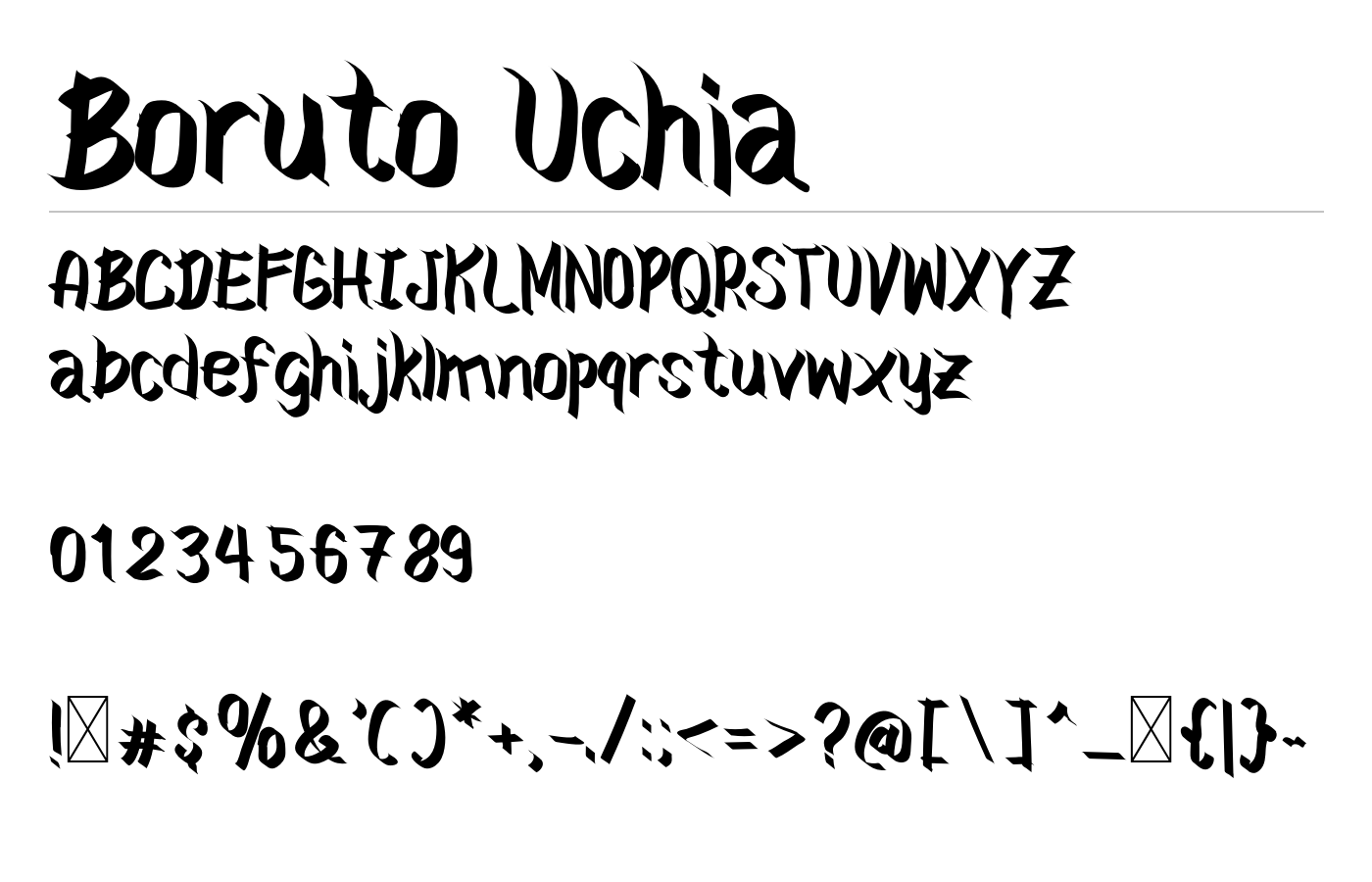
Boruto Uchia is a bold and expressive display font with a distinctive handwritten feel, featuring sharp, angular strokes that evoke a dynamic and energetic style. Its wide, lively letterforms and irregular edges make it ideal for creating impactful, adventurous designs, perfect for logos, posters, or branding that aims to convey excitement and a touch of bold personality. This font works well where a striking, unconventional look is desired, especially in creative or youth-oriented projects.
Boruto Uchia Font
About Boruto Uchia Font